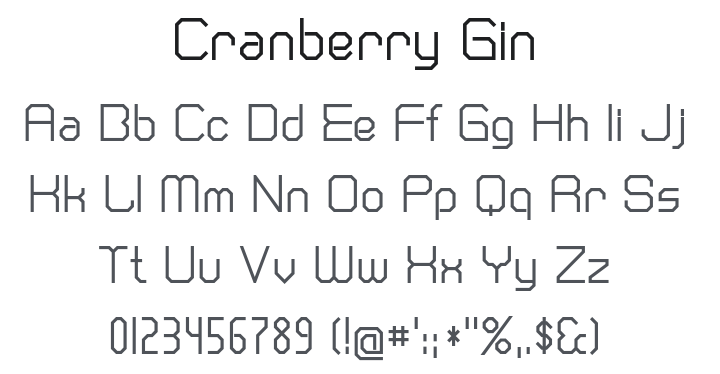
Cranberry Gin Font
About Cranberry Gin
Cranberry Gin is a clean, octagonal technical sans-serif with clipped corners that echo the look of 1980s X/Y pen plotter output — precise, angular, and robotic without feeling aggressive. Its geometric efficiency gives it a cool, mechanical authority. Great for engineering-themed designs, tech branding, sci-fi interfaces, industrial signage aesthetics, and any headline needing a crisp, systematic tone.